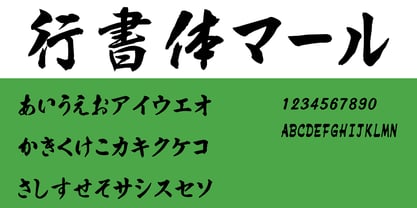
MRGyosho
La familia tipográfica MRGyosho fue diseñada por y publicada por MAAR-sha. MRGyosho contiene 2 estilos y opciones de paquete familiar. Más información sobre esta familia
This font is based on the book "Display Typeface Collection: Classic Clerical Script Dictionary" originally compiled by Yoshitaro Yukawa and edited by MAAR Co. editorial team.
It features characters selected from the two-volume "Zuitou Tensaireisougyoureisen," published in 1881 (Meiji 14). The selection includes glyphs from JIS Level 1 standards as well as characters commonly used in place names and personal names. Since the original compilation dates back to the Meiji era, some characters are preserved in their traditional forms.
Its nostalgic, retro aesthetic makes it a perfect choice for café menus, signage, book covers for poetry collections, and more.